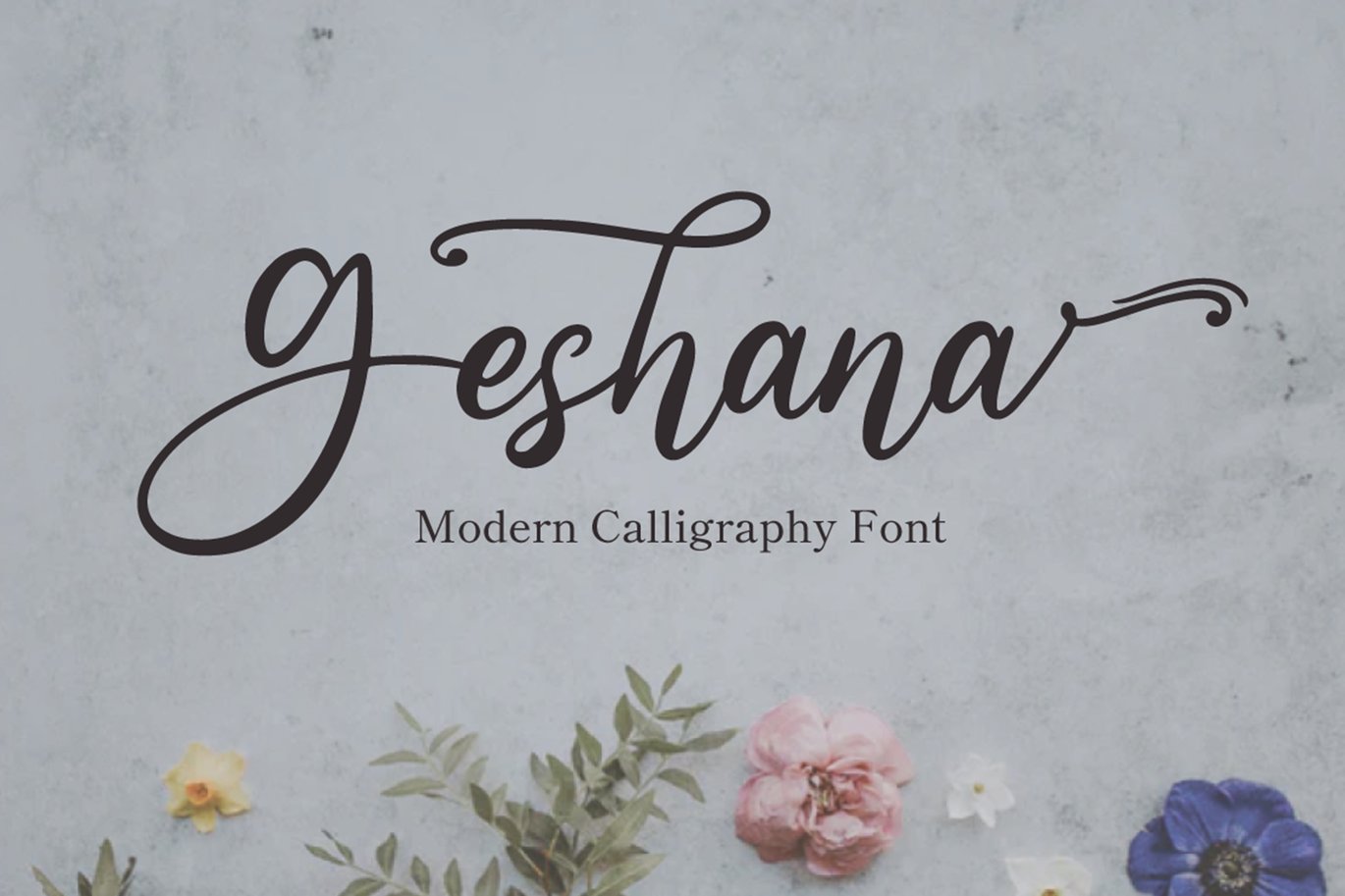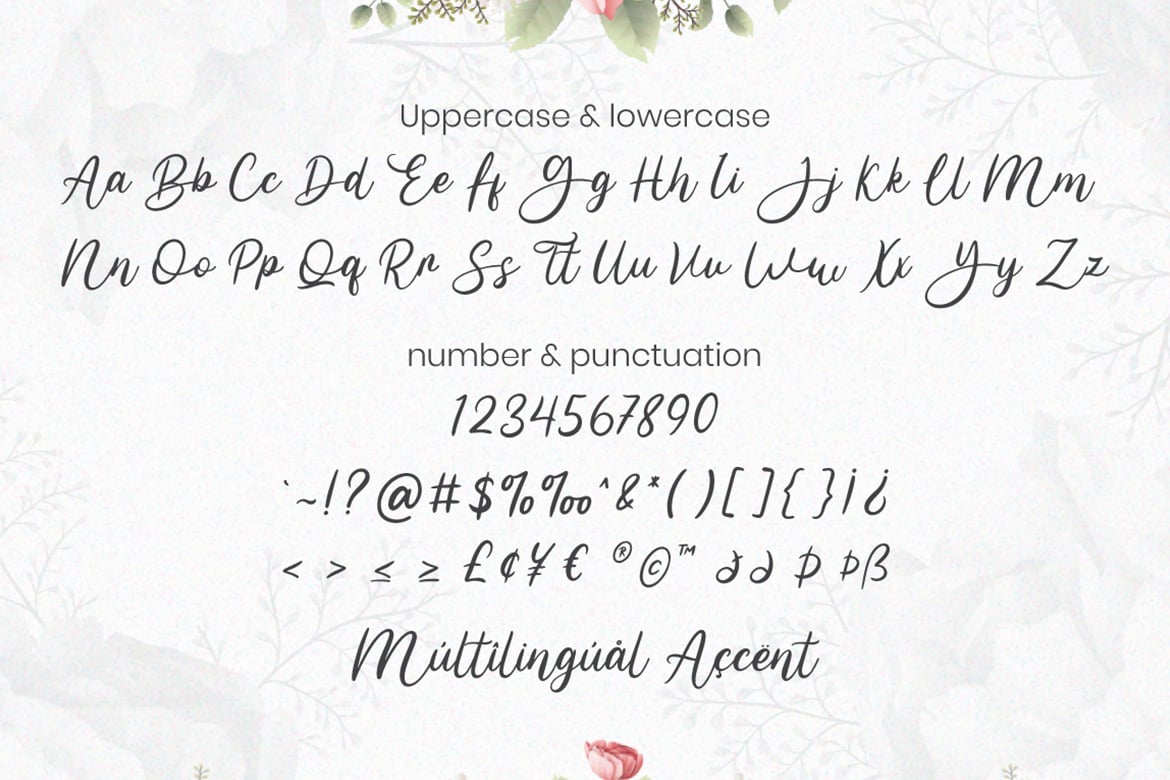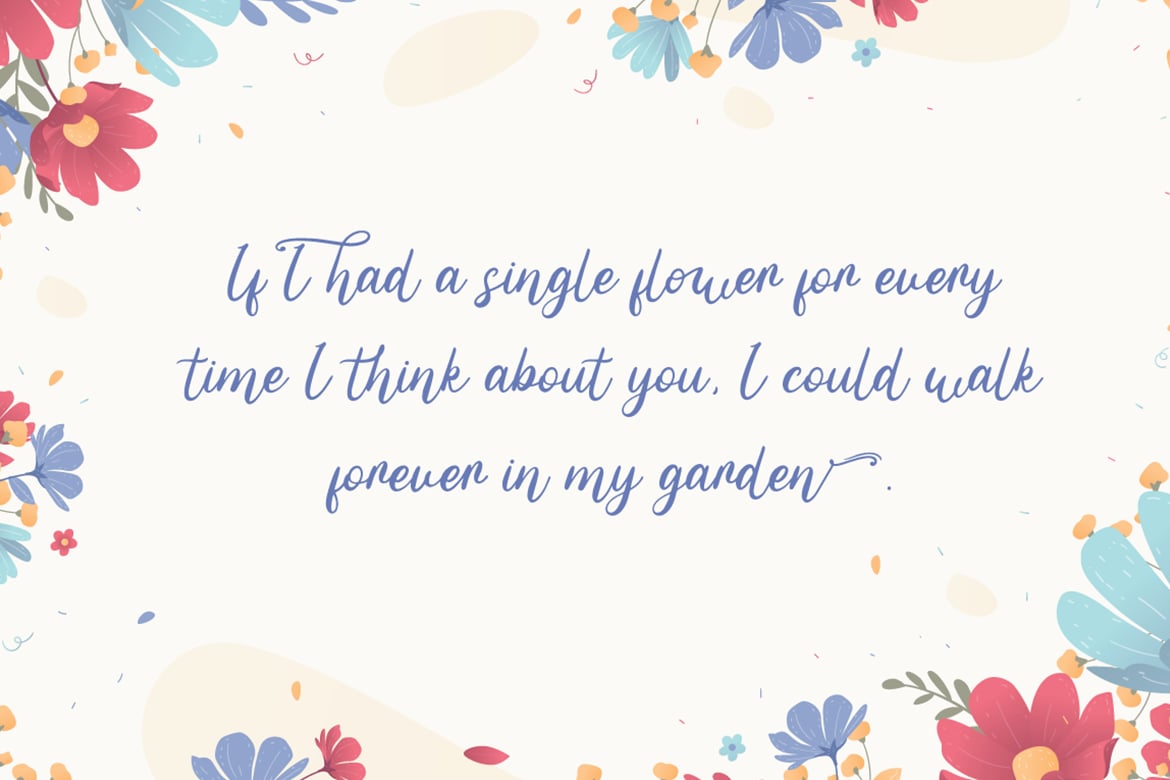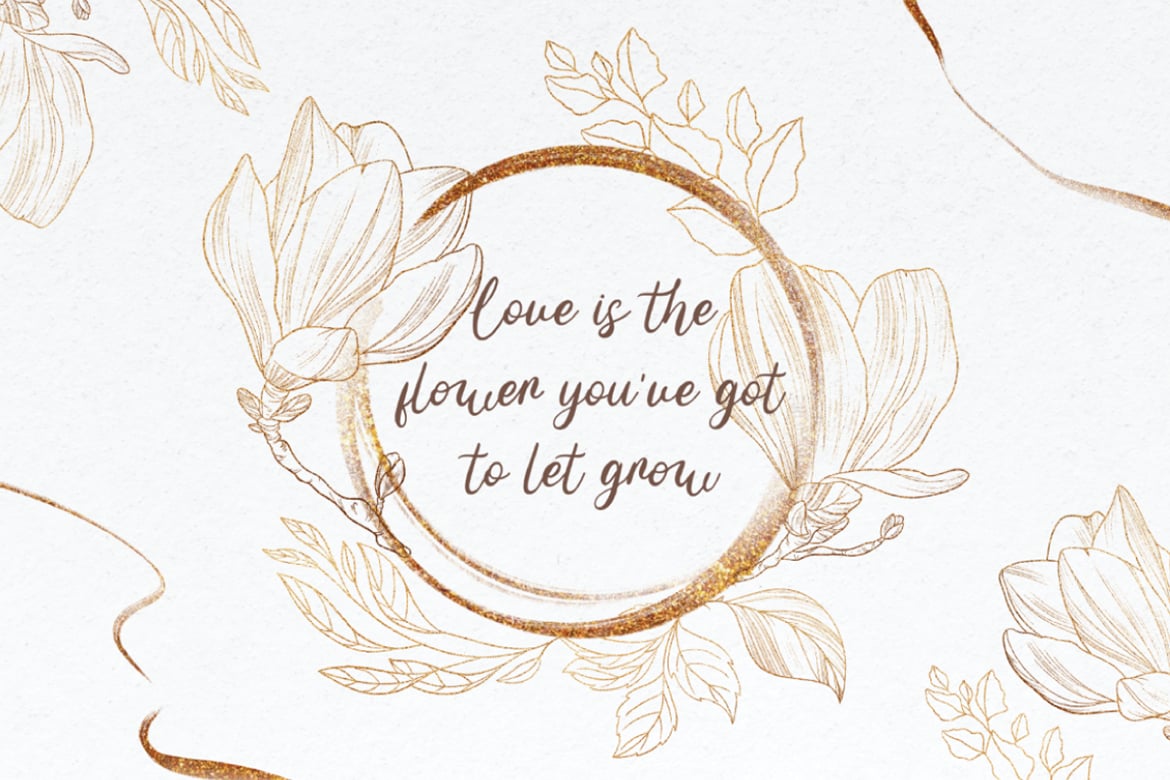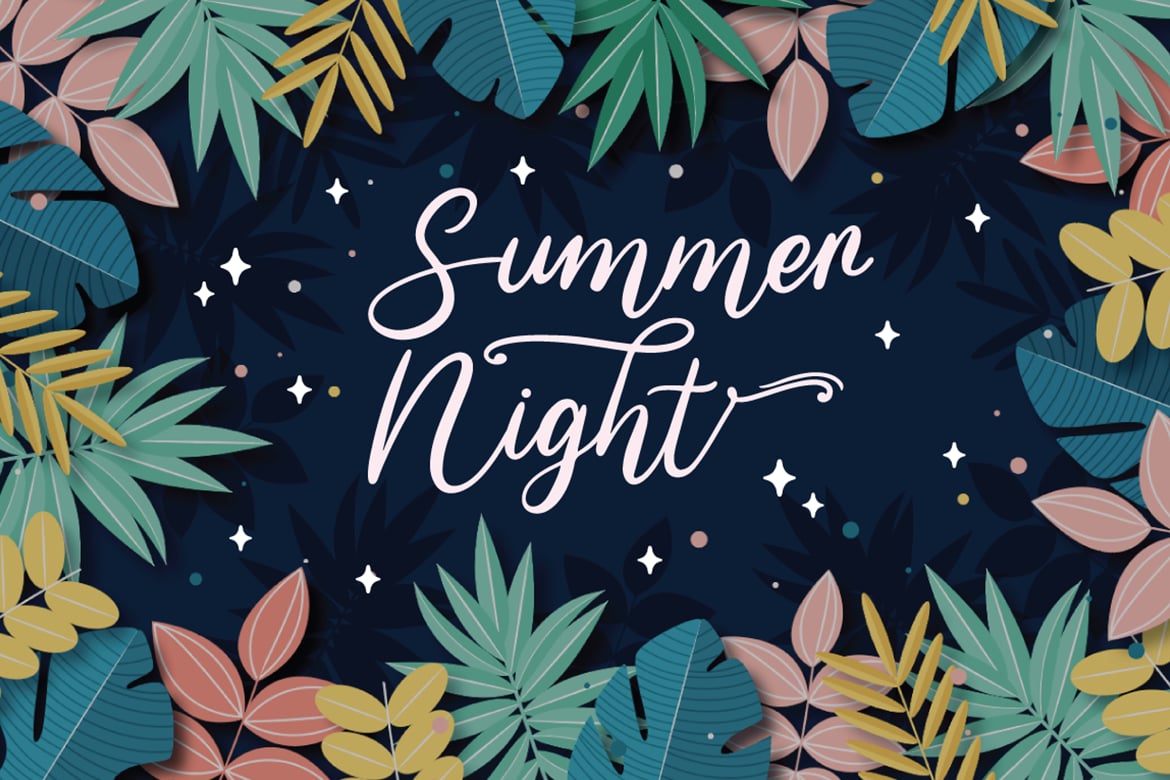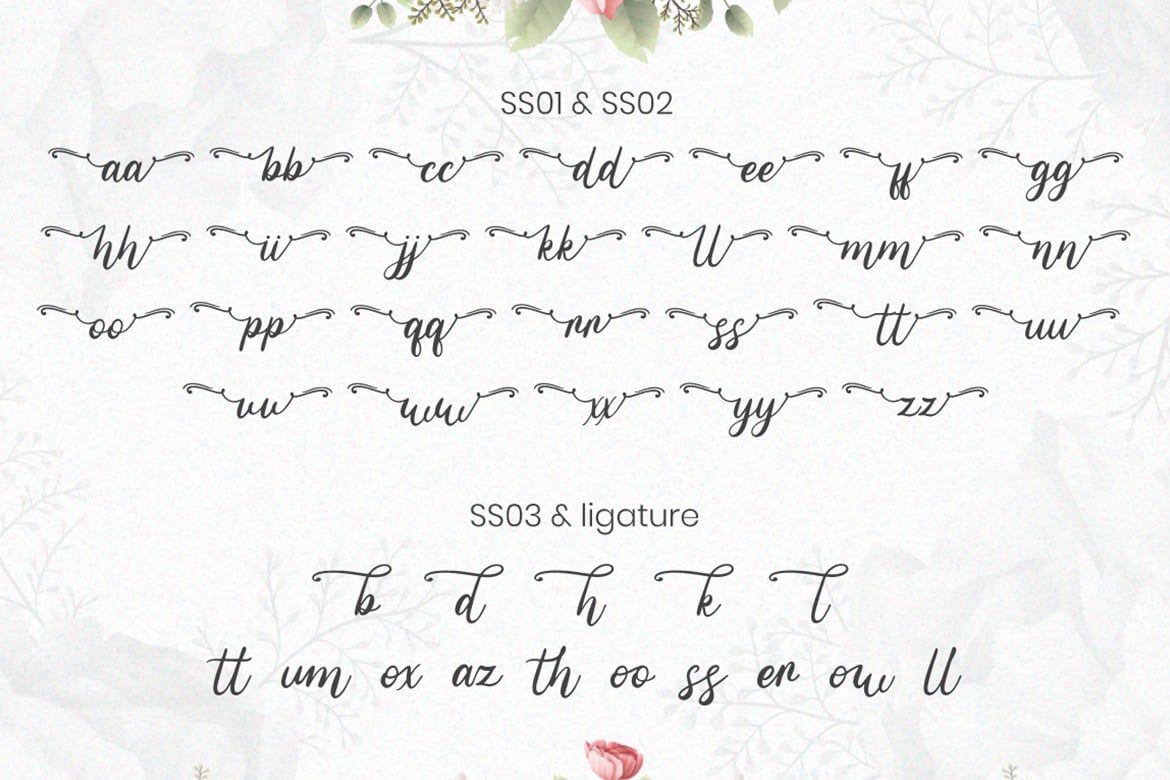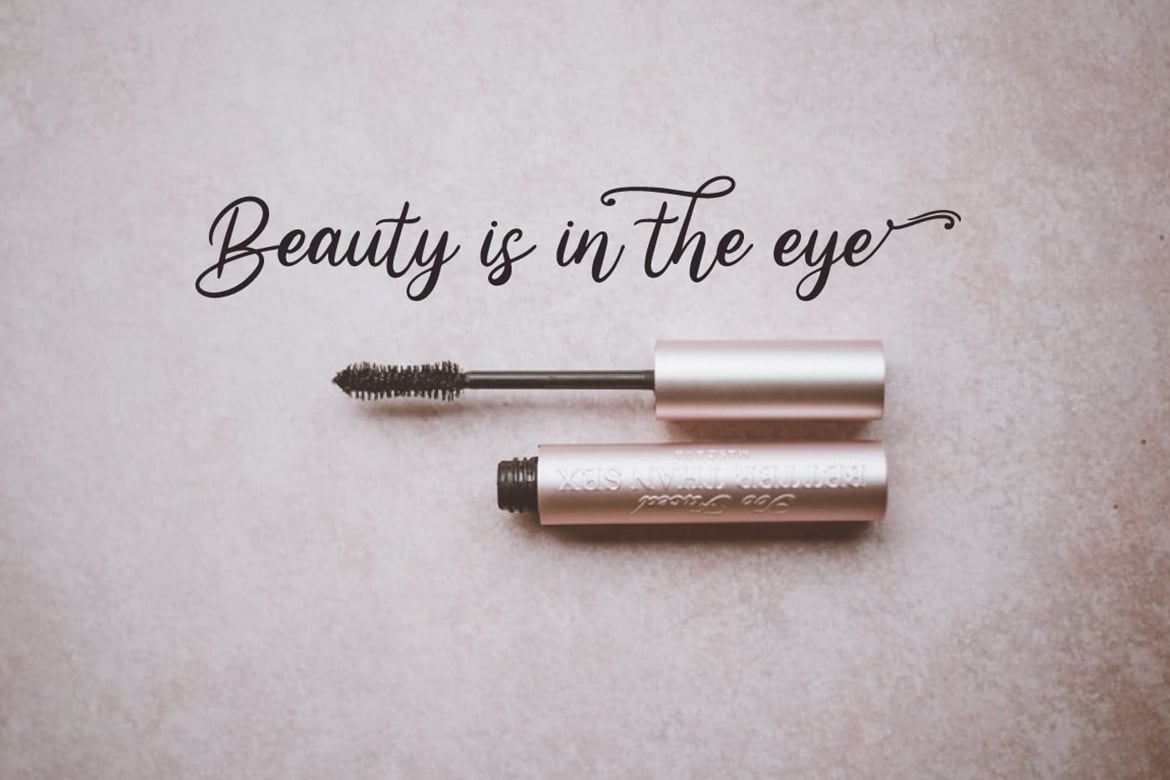
Geshana – Wedding Font
Geshana is a Modern Calligraphy Font. Perfect font for your wedding ceremony.
Combine Geshana stylistic set to create amazing script font for wedding!
Fall in love with its incredibly versatile style and use it to create spectacular designs!
Geshana is perfect for branding, logo, invitation, quotes, wedding invitation, cricut font, silhouette font, product packaging, merchandise,
game titles, cute style design, Book/Cover Title and more.